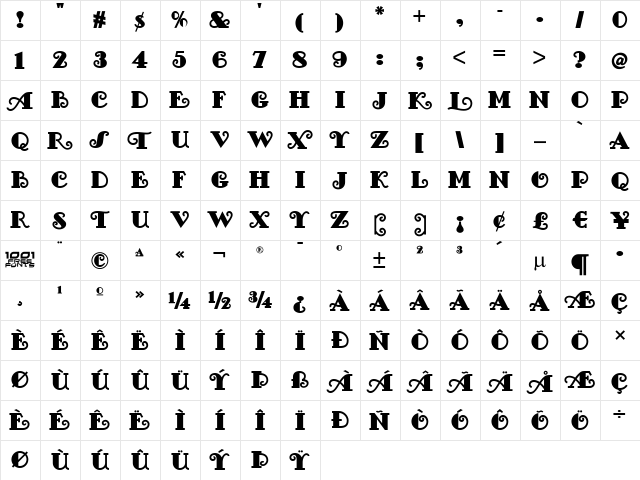
Fancy Pants NF Regular
Design Context for Fancy Pants NF Typeface
Fancy Pants NF is a composed and adaptable typeface that performs quietly and consistently across a wide range of design contexts.